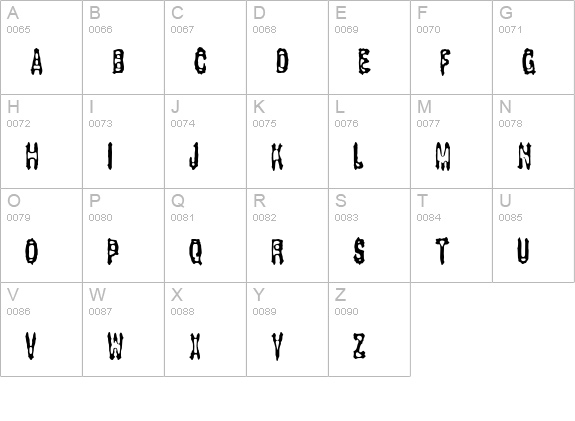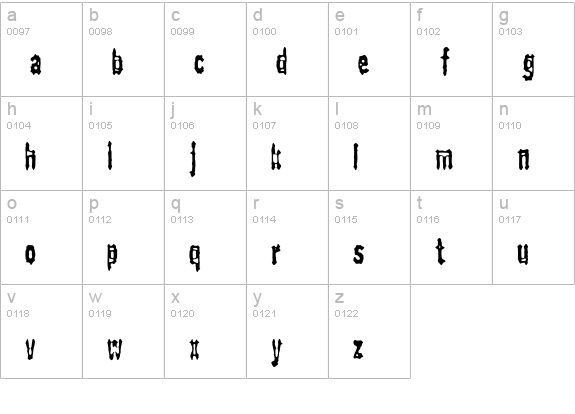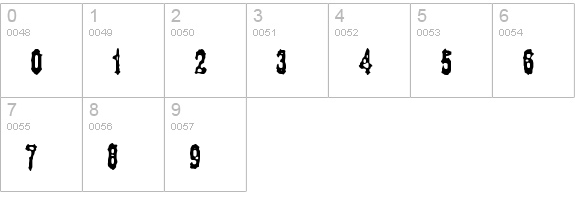
Gasping (BRK) is a bold and eye-catching font that will make your designs stand out. With its unique and edgy style, this font is perfect for creating attention-grabbing headlines, posters, and branding materials. The jagged edges and uneven strokes give Gasping (BRK) a modern and dynamic look that is sure to make an impact. The best part is that Gasping (BRK) is completely free to download at FontsMarket.com. Whether you're a graphic designer, artist, or just someone looking to spice up their projects, this font is a must-have in your collection. So why wait? Get your hands on Gasping (BRK) today and take your designs to the next level!